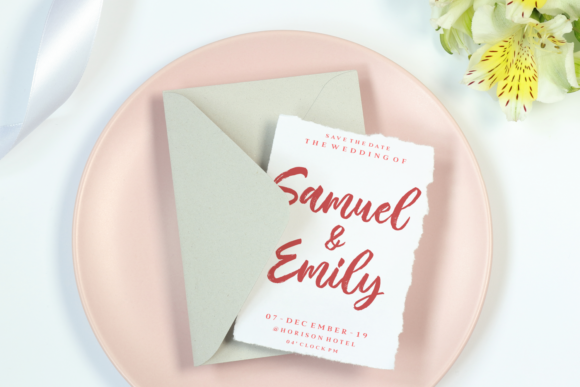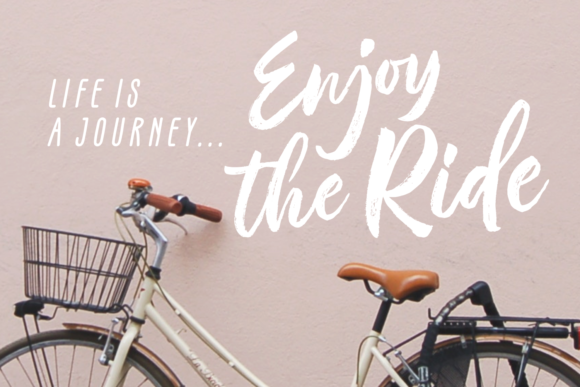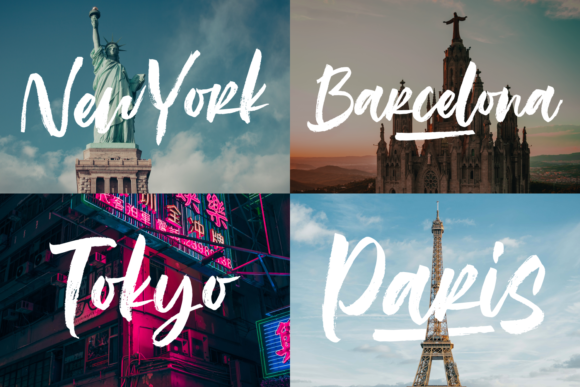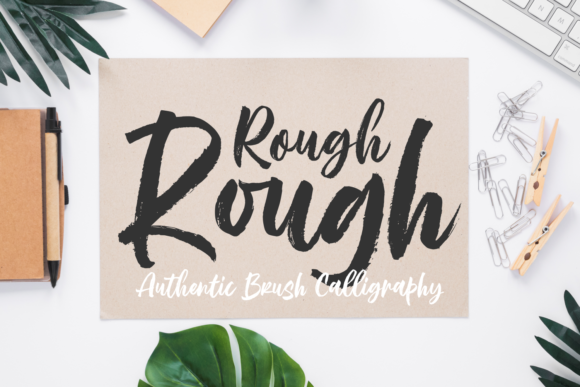
Introduction to Rough Rough Font
Rough Rough is a fun and bold handwritten font with a contemporary twist.
It will turn any design project into a standout .